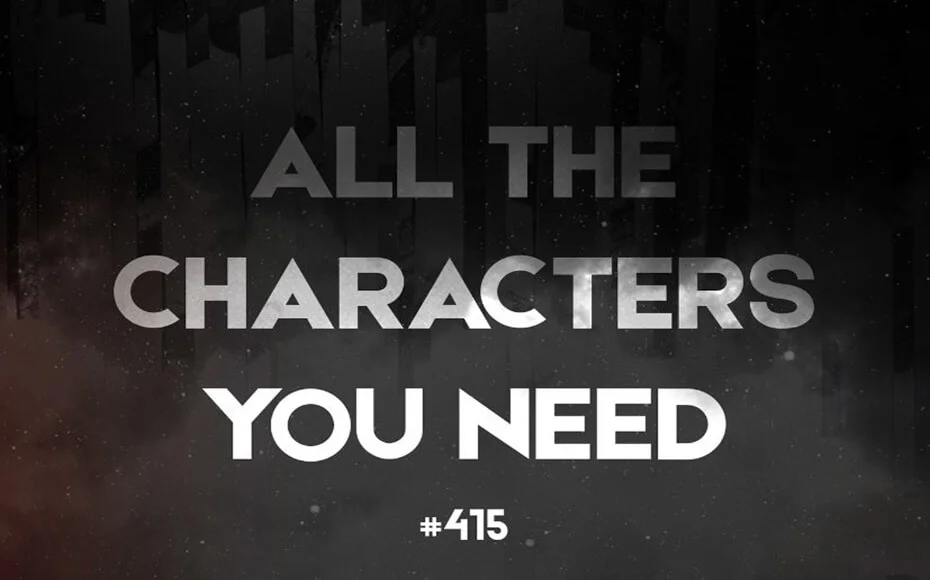
Etna is a bold sans serif that’s best for text in large sizes, like headlines. Lowercase letters are included, but the uppercase letters are a bit more striking.
A Latvian designer Krisijanis Mezulis took the charge of designing and publishing it for the first time in June 2015.
This display typeface is made with thick strokes that make it bold and elegant. Its width is extra, while its height is the same as the standard size.
Its strong and bold texture makes it close to Technofont. So, you can easily use this sans serif typeface with or on behalf of other techno fonts.
Font Name: | Etna Font Family |
Style: | Sans Serif, Display, Techno |
Font Designer: | Krisijanis Mezulis |
It is perfectly suited for display or other purposes. For example, book covers, unique emblems, printing on cards, game graphics, game development, printing on cards, product designs, mugs print, special quotes, and many more.
It comprises a single regular style along with Opentype features. This single style has more than 117 characters including uppercase, lowercase, numbers, and marks.